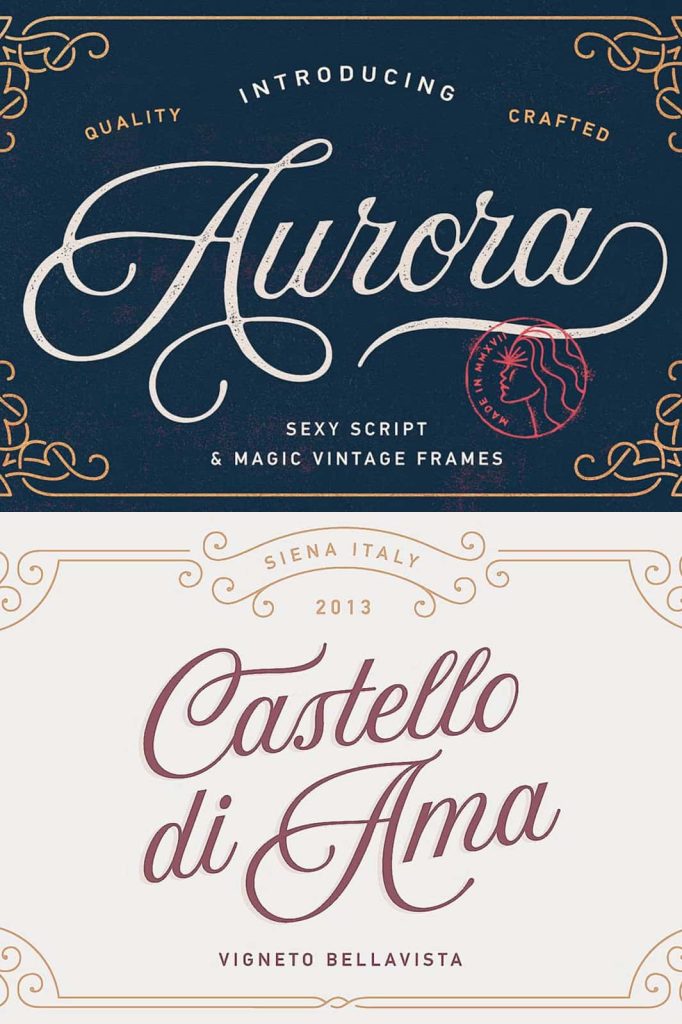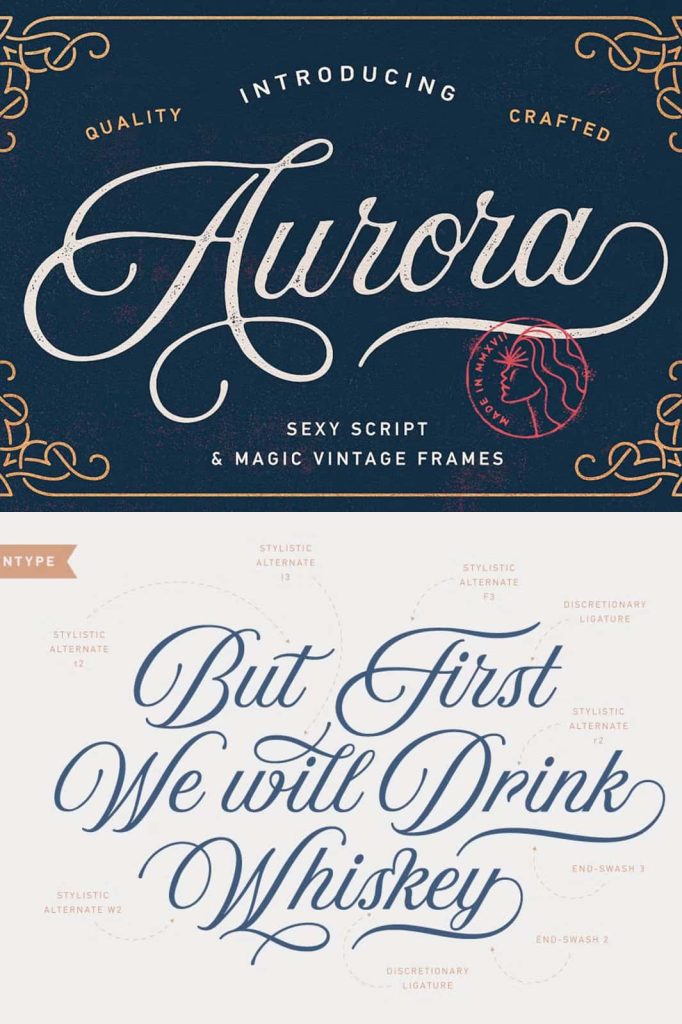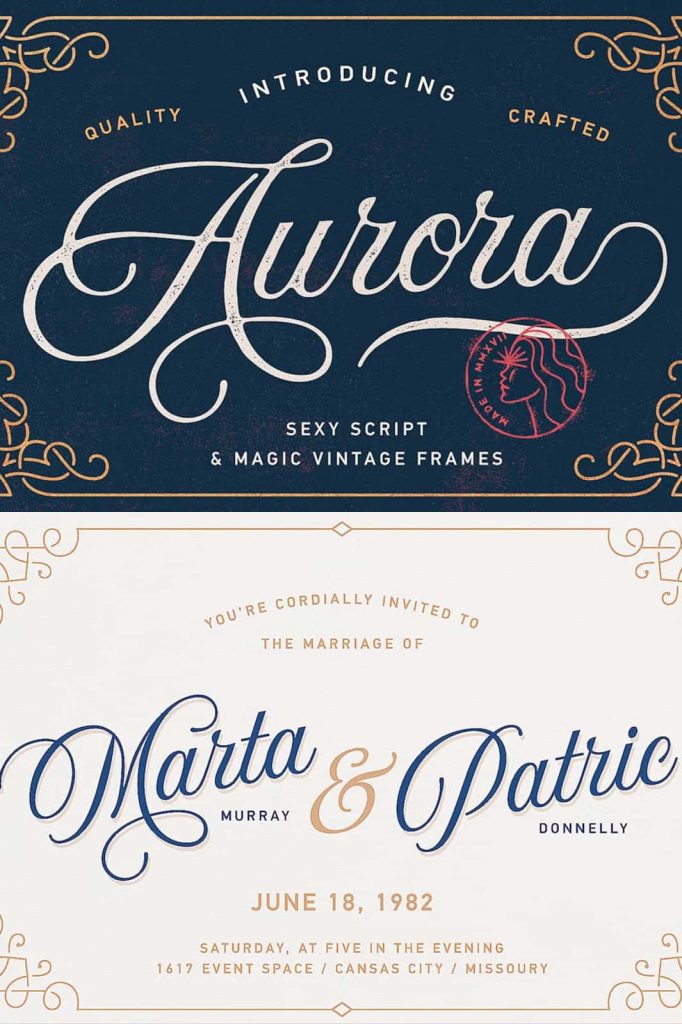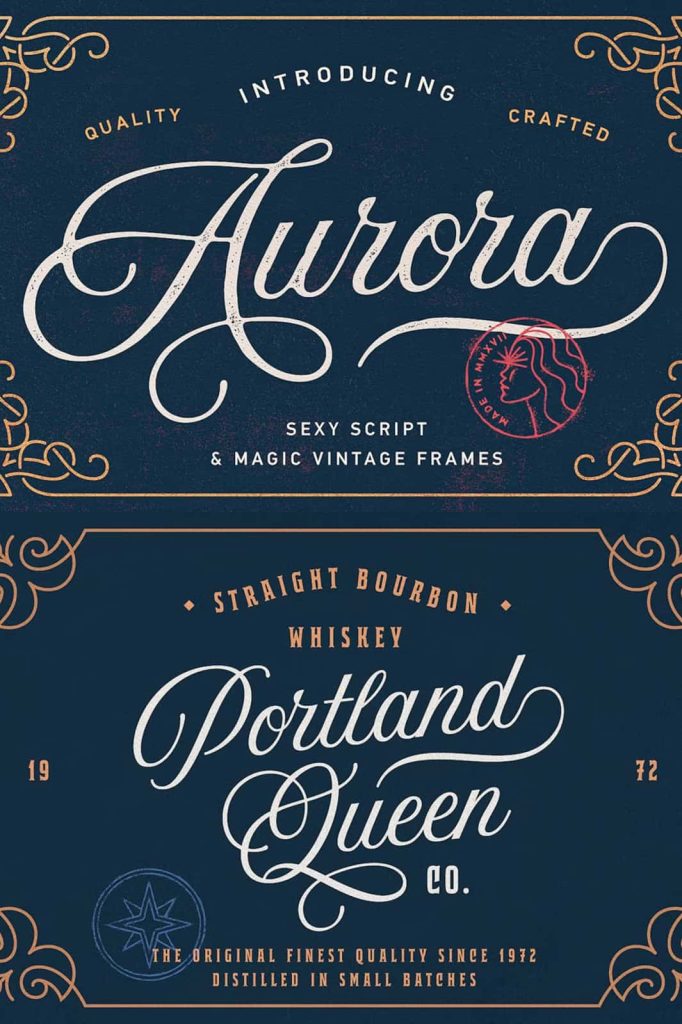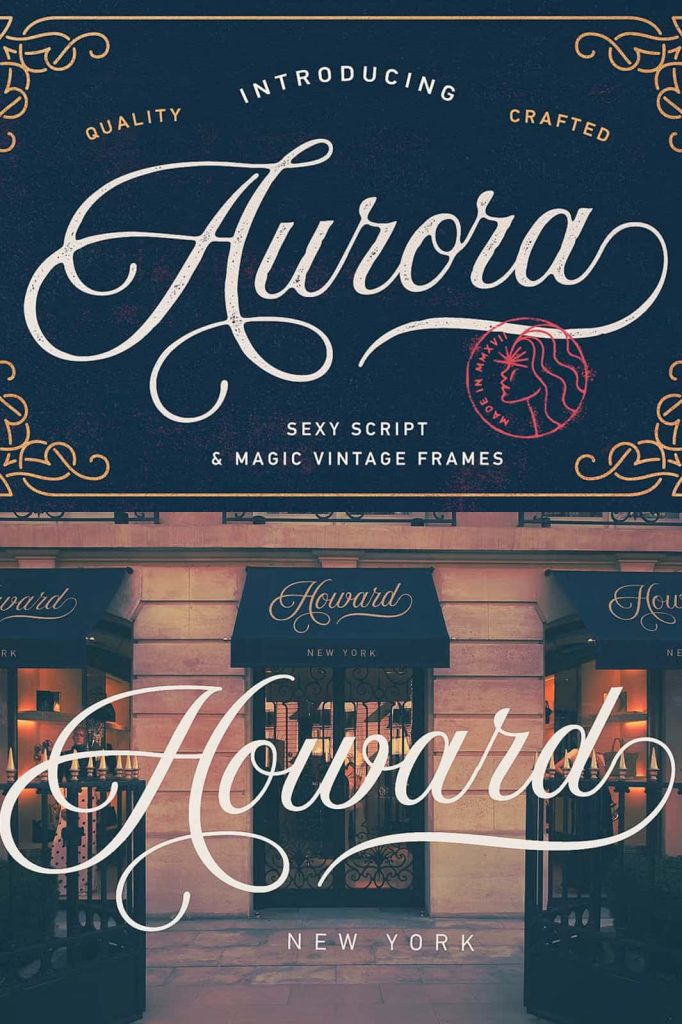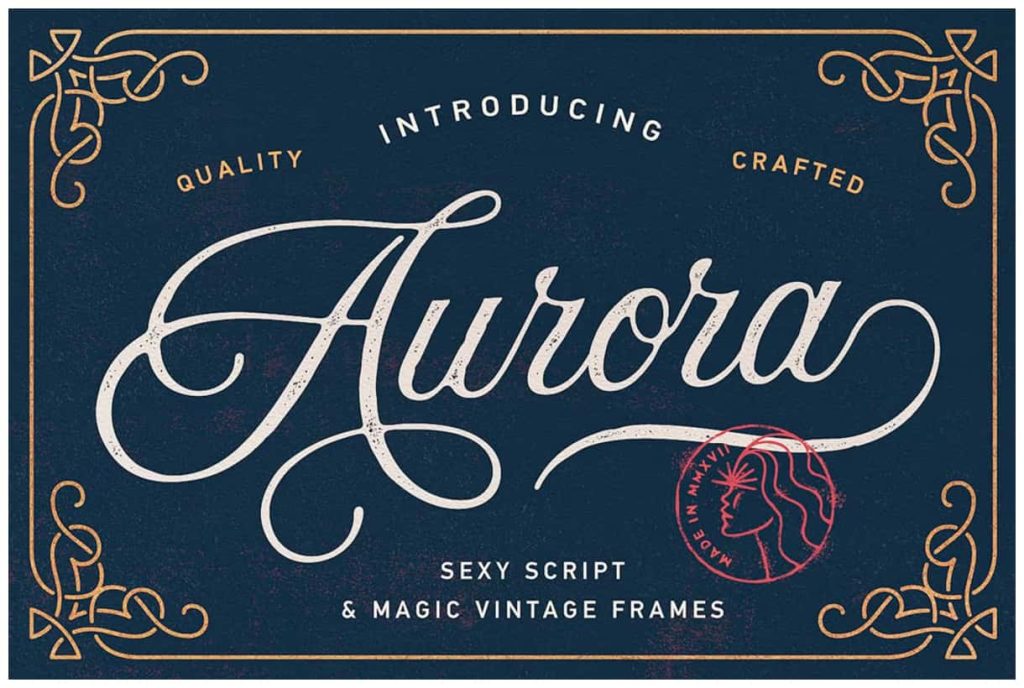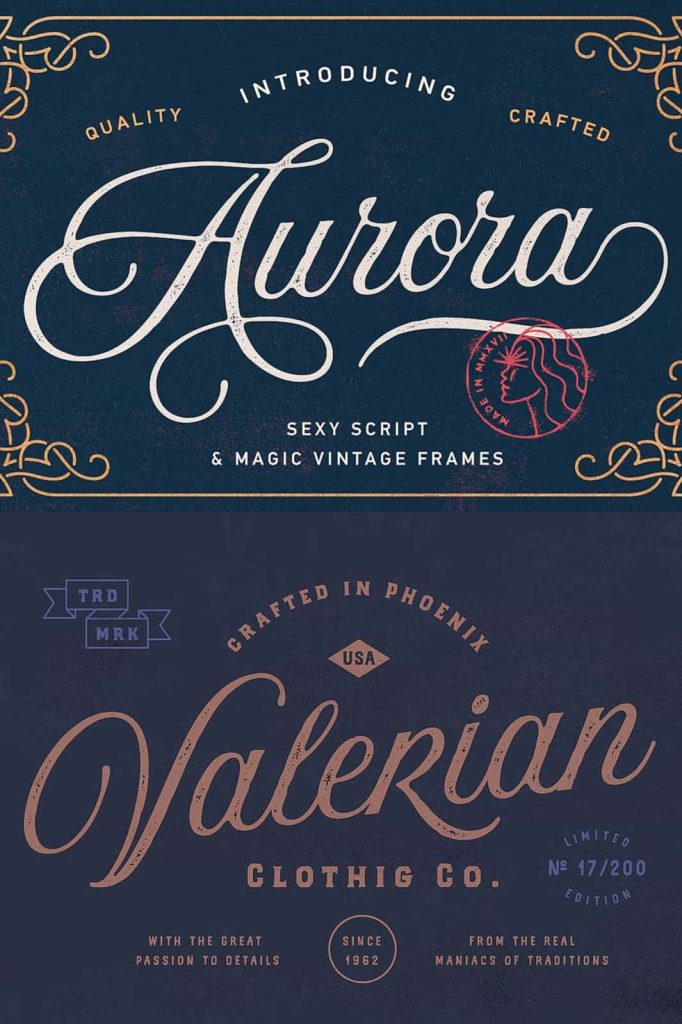
Aurora Script is a vintage font, handwritten under the inspiration of traditional calligraphy and the mystical soundtrack of Wojciech Kilar. To complement the font’s character, I’ve also included a collection of decorative frames that help create an overall luxurious and elegant aesthetic.